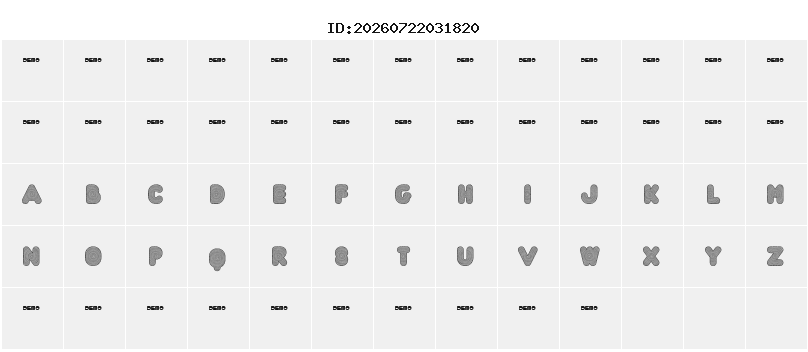
FT AcidTest Preview
• Font Name: FT AcidTest
• Font Style: regressive
About FT AcidTest.ttf
FT AcidTest.ttf is a modern, elegant sans-serif font designed for ultimate readability and visual harmony. Perfect for branding, headlines, web design, and print materials.